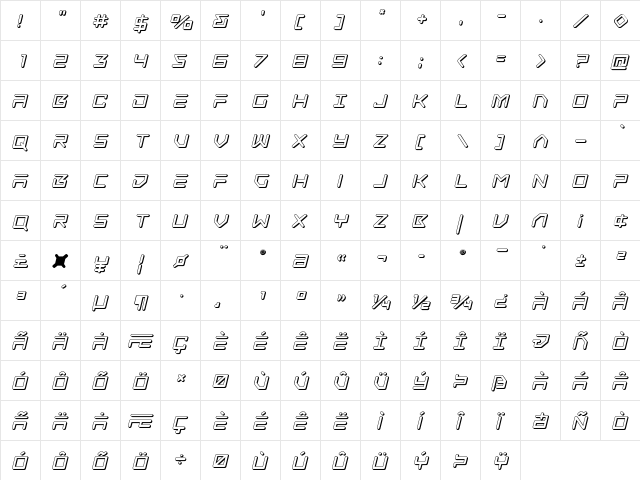
Tempest Apache 3D Italic Italic
Design Context for Tempest Apache 3D Italic Typeface
Tempest Apache 3D Italic takes a measured approach to typography — its balanced proportions and neutral character make it a reliable workhorse for both digital and print work. The slanted form adds forward momentum and visual energy.